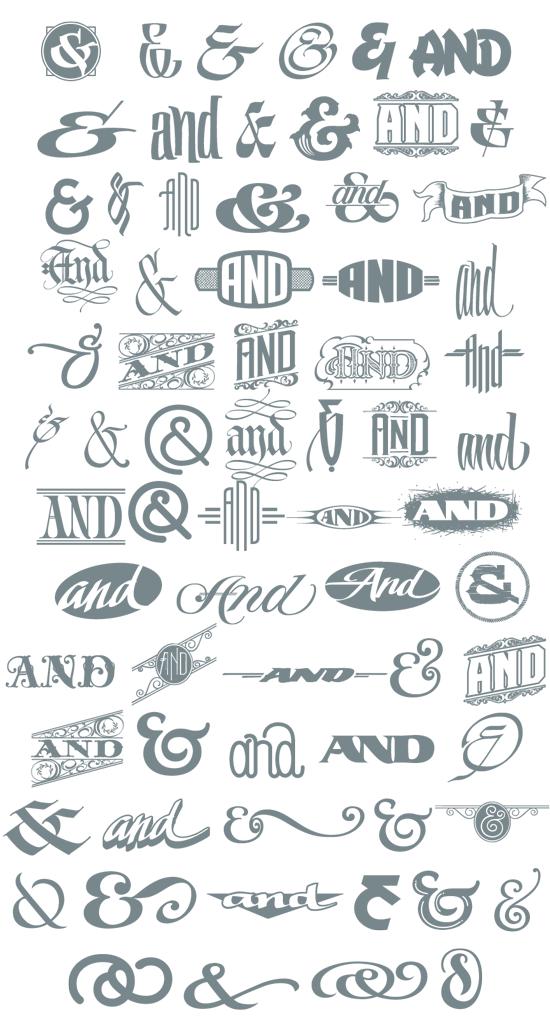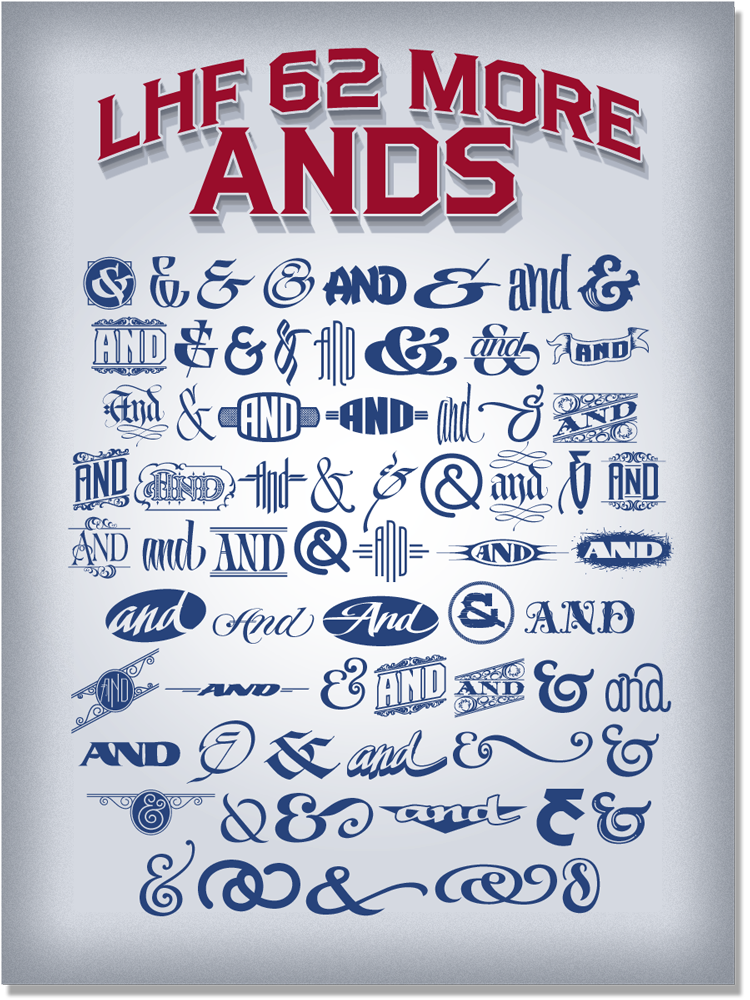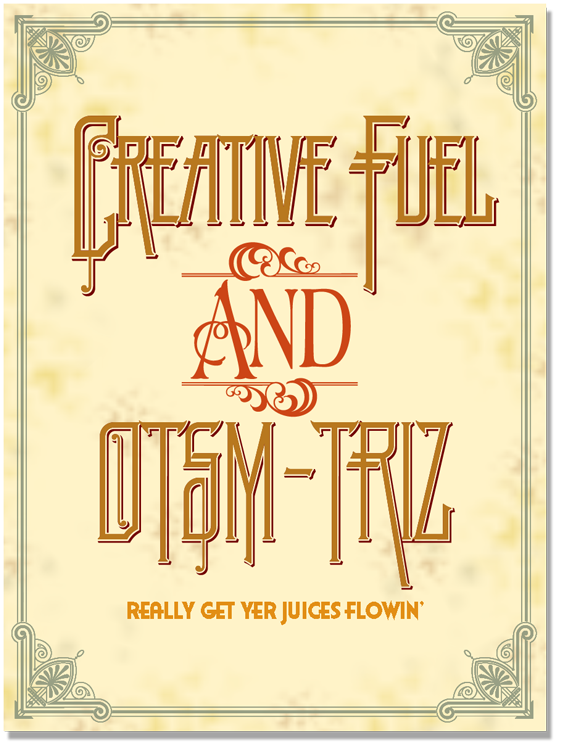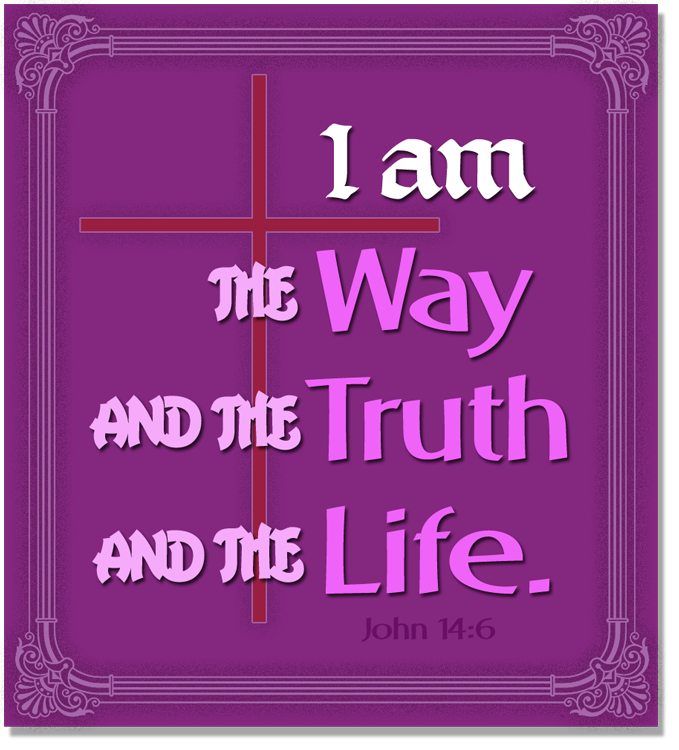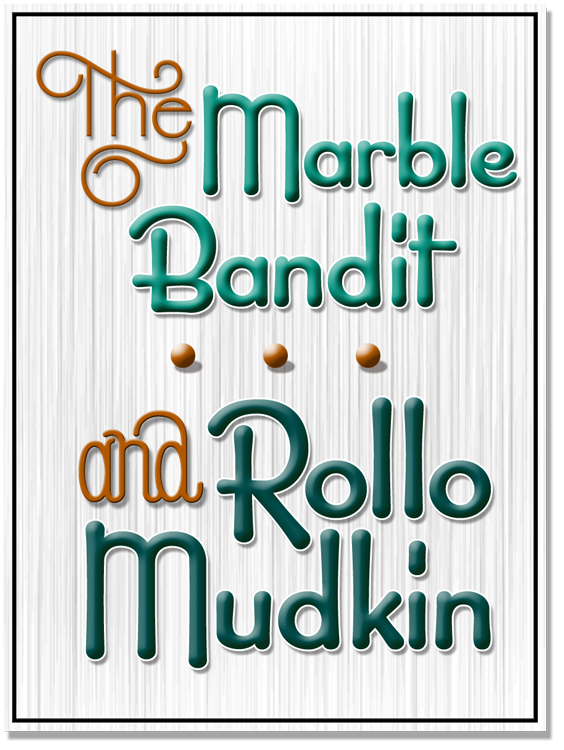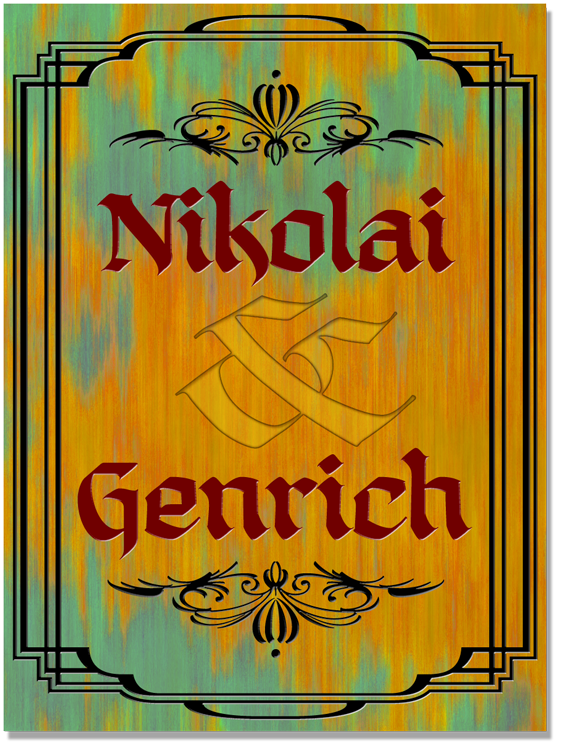
62 More Ands was developed as a sequel to the font 62 Ands released in 2014 by font artists Chuck Davis and Patrick Kalange at Letterhead Fonts. ![]()